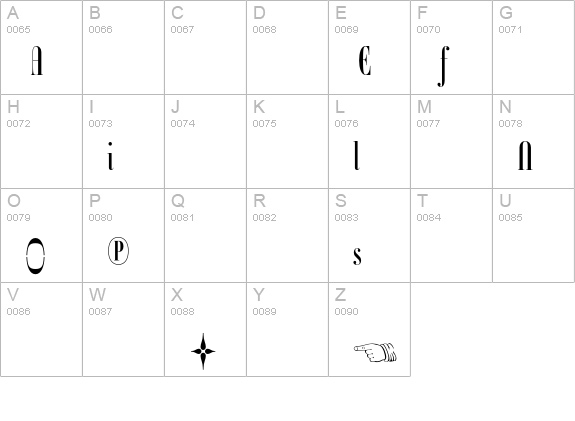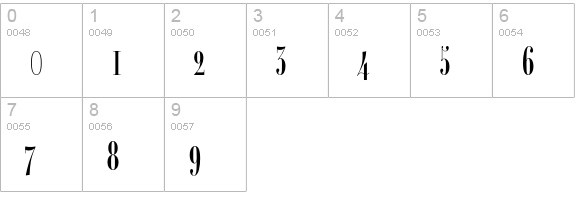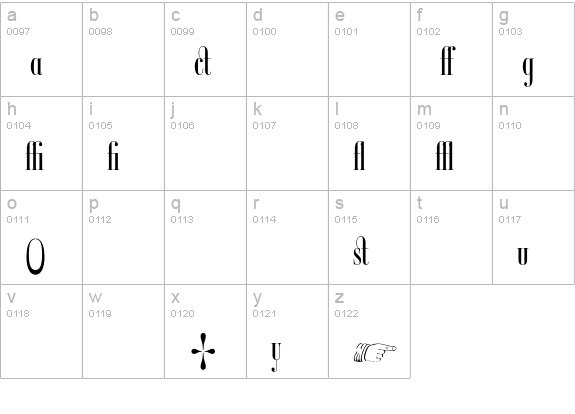
Ambroise Francois Alternates Regular is the standard, neutral variant in the Ambroise typeface family \xE2\x80\x94 well suited to general body text, paragraphs, and standard typographic work.
Ambroise Francois Alternates Regular font is a stylish and versatile typeface designed to bring a touch of elegance to your projects. With its classic yet modern design, this font is perfect for creating sophisticated and eye-catching designs. The alternate characters add a unique flair to your text, making it stand out from the crowd. What's even better is that Ambroise Francois Alternates Regular font is available for free download at FontsMarket.com. This means you can easily access this beautiful font and use it in your personal and commercial projects without any extra cost. Don't miss out on this opportunity to enhance your designs with the timeless beauty of Ambroise Francois Alternates Regular font.